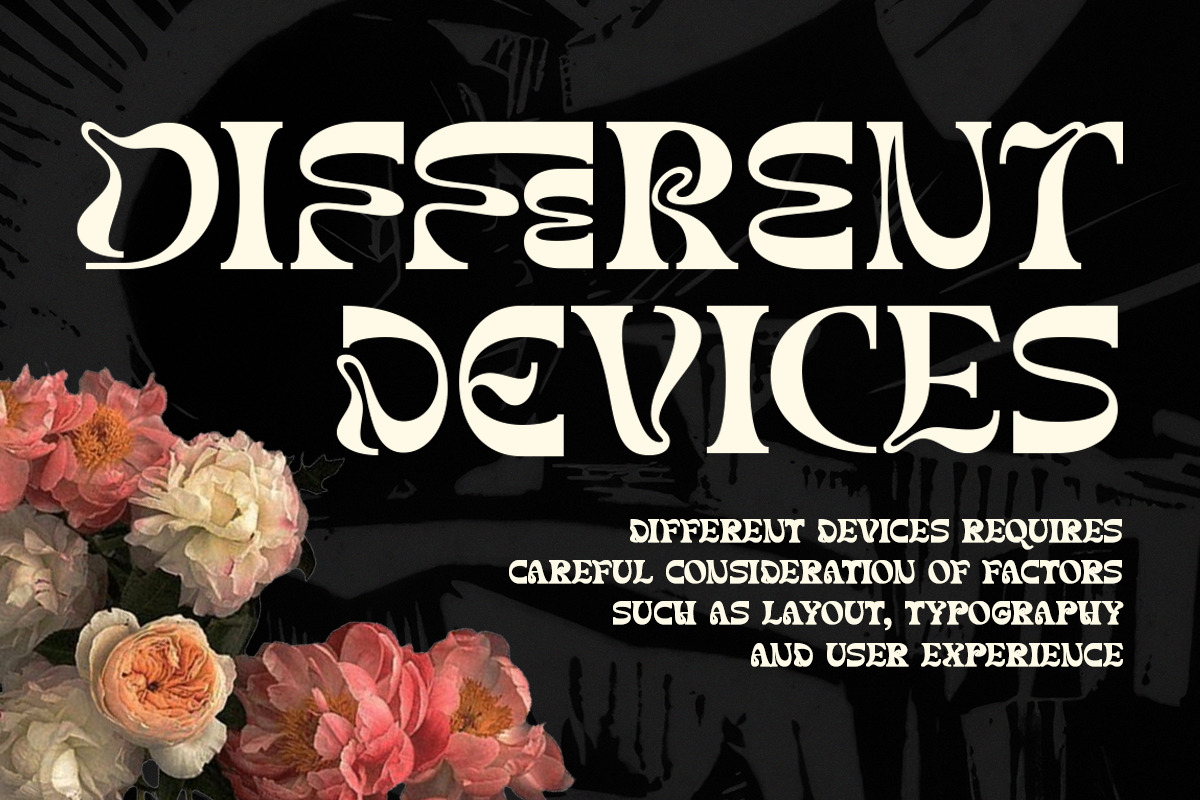
Siofeca Martis - Display Serif Font
Introducing Siofeca Martis - The Psychedelic Serif Display Font that Redefines Typography!
Siofeca Martis isn't your typical serif font; it's a bold statement of creativity and innovation in the world of typography. With its psychedelic flair and striking display, Siofeca Martis embodies the essence of #SerifFonts and #TypographyTrends.
Crafted for designers seeking to push the boundaries of traditional serif design, Siofeca Martis adds a touch of whimsy and intrigue to any project. Its unique characters and vibrant display make it perfect for logos, posters, album covers, and more.
Join the trend towards bold and daring typography with Siofeca Martis. Elevate your designs and make a lasting impression with this mesmerizing serif font! #SiofecaMartis #PsychedelicSerif #DesignInnovation
- Opentype features ( ligature, alternate )